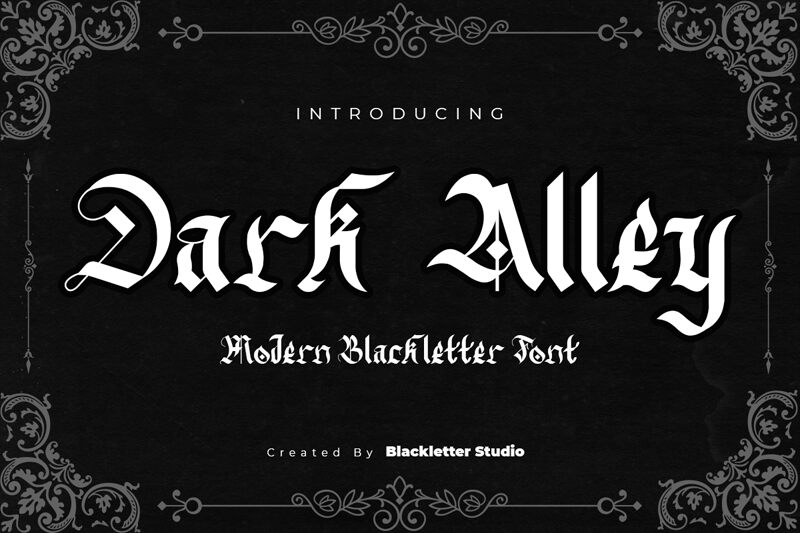
Dark Alley by Blackletter Studio is a gothic font that exudes a medieval vibe with its blackletter style. This semi-light font is perfect for projects that need to convey an old-world feel, such as vintage posters, book covers, or even tattoo designs. The intricate details of the Dark Alley font will add an air of mystique and darkness to any project it's used in. Its unique style makes it suitable for anything from horror movie titles to restaurant menus with a dark twist. With Dark Alley, your project will stand out and leave a lasting impression on your audience.